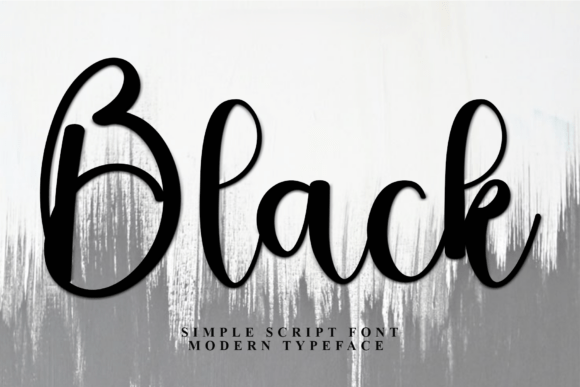
Black Font: The Ultimate Choice for Creative and Casual Designs
In the world of typography, fonts play a crucial role in conveying the tone and personality of a design. Among the numerous font styles available, Black Font stands out for its unique blend of warmth, friendliness, and creativity. This article will delve into the characteristics, benefits, and uses of Black Font, as well as its technical features, making it an ideal choice for designers and non-designers alike.
What is Black Font?
Black Font is a casual and creative typeface that exudes warmth and friendliness. Its round, playful strokes create a relaxed and approachable feel, making it perfect for personal projects, invitations, and social media graphics. The font’s charming, hand-drawn aesthetic adds a fun and unique touch to any design, allowing users to express their creativity and individuality.
Benefits of Using Black Font
- Perfect for Personal Projects: Black Font’s casual and friendly nature makes it an excellent choice for personal projects, such as DIY crafts, blogs, and social media posts.
- Great for Invitations: The font’s playful and charming aesthetic makes it ideal for creating invitations for parties, events, and other celebrations.
- Ideal for Social Media Graphics: Black Font’s unique and creative style makes it perfect for creating engaging social media graphics, such as quotes, posters, and infographics.
- Easy to Read: The font’s clear and legible design ensures that your message is conveyed effectively, making it easy for readers to understand and engage with your content.
Technical Features of Black Font
Design Tips for Using Black Font
To get the most out of Black Font, here are some design tips to keep in mind:
- Pair with Other Fonts: Black Font pairs well with other fonts, such as sans-serif fonts, to create a visually appealing contrast.
- Use for Headings and Titles: The font’s bold and playful style makes it perfect for headings and titles, adding a touch of personality to your design.
- Experiment with Colors: Black Font looks great in various colors, so don’t be afraid to experiment and find the perfect hue to match your brand or design.
Common Uses of Black Font
Black Font is a versatile typeface that can be used in a variety of design projects, including:
- Social media graphics
- Invitations and party decorations
- Personal blogs and websites
- DIY crafts and handmade products
- Posters and flyers
Why Choose Black Font?
With so many fonts available, why choose Black Font? Here are a few reasons:
- Unique and Creative: Black Font’s hand-drawn aesthetic and playful style make it a unique and creative choice for designers.
- Versatile: Black Font can be used in a variety of design projects, from personal to commercial.
In conclusion, Black Font is a casual and creative typeface that offers a unique blend of warmth, friendliness, and playfulness. Its technical features, versatility, and ease of use make it an excellent choice for designers and non-designers alike. Whether you’re working on a personal project, creating social media graphics, or designing invitations, Black Font is sure to add a touch of personality and creativity to your design.